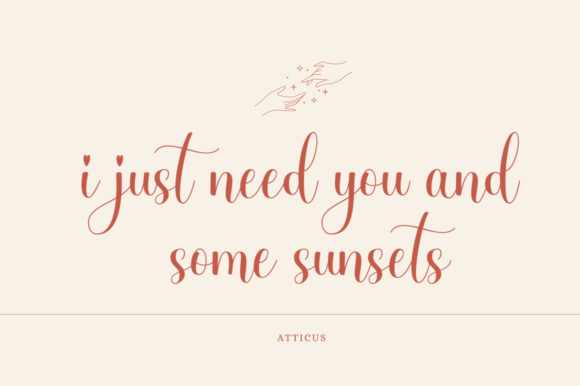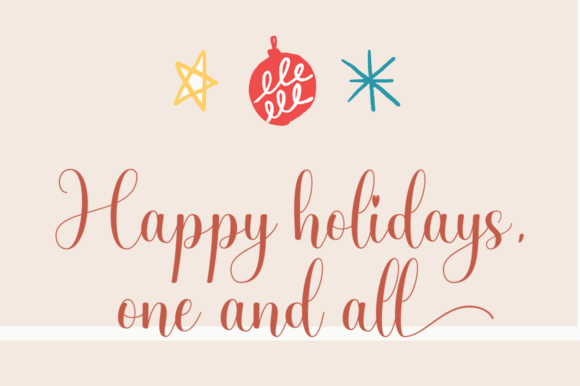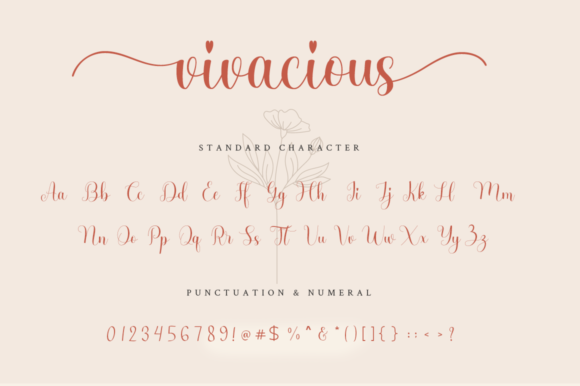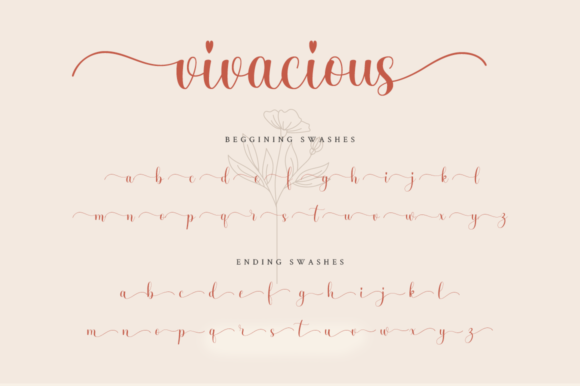
About Vivacious Font
Vivacious is a lovely script font. This font is neatly crafted and highly detailed. Whatever the topic, this font will be a wonderful asset to your font library, as it has the potential to enhance any creation.This font is PUA encoded which means you can access all glyphs and swashes with ease!